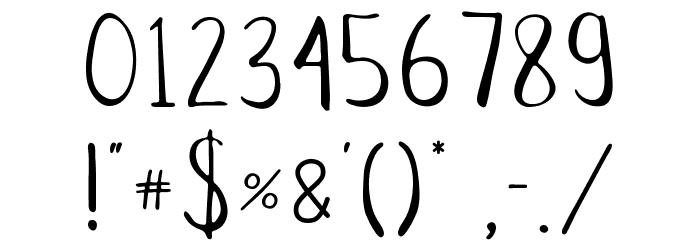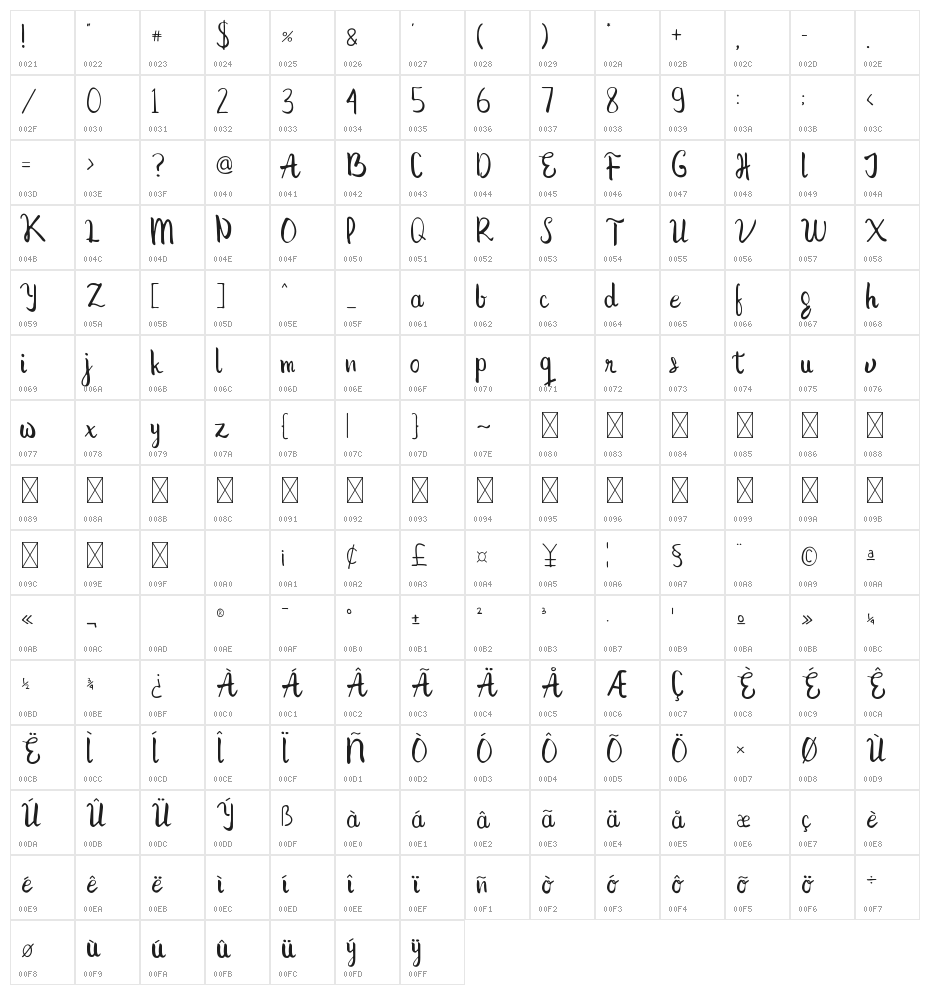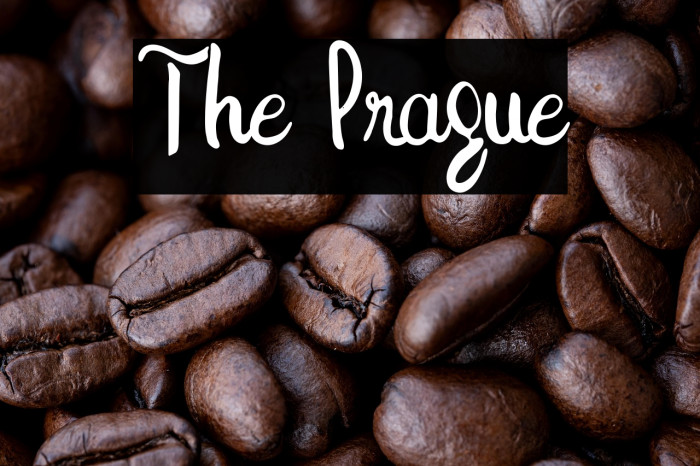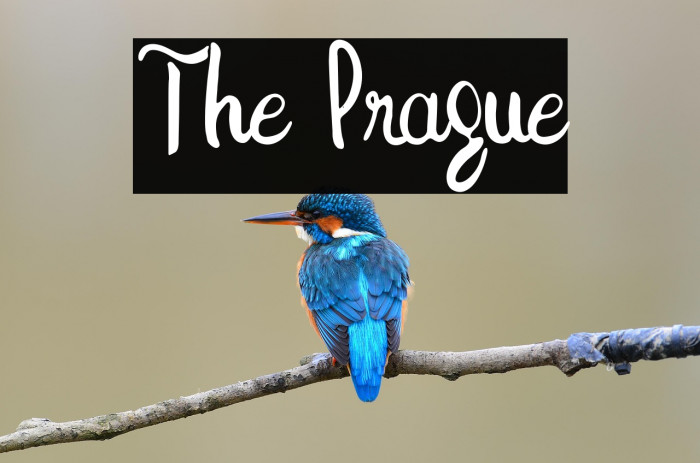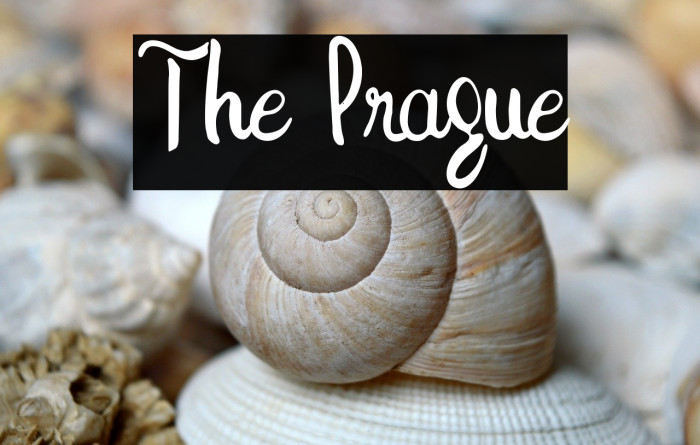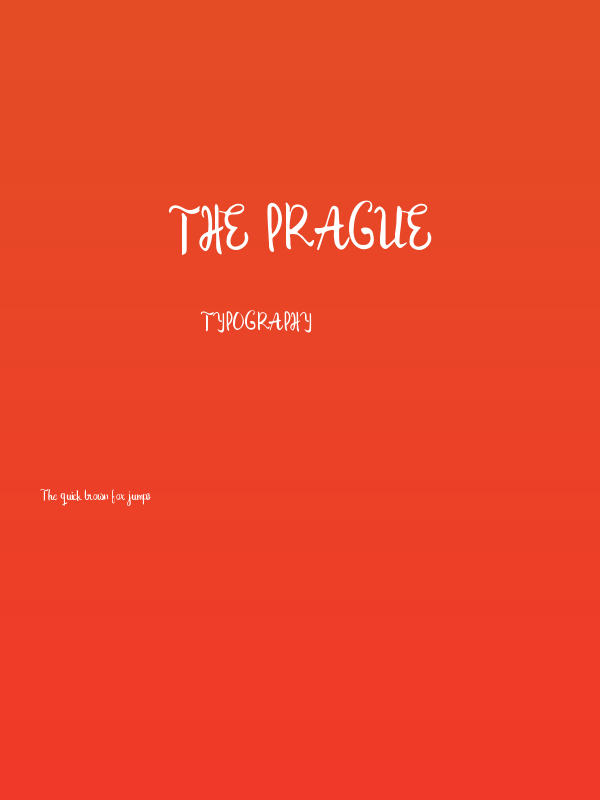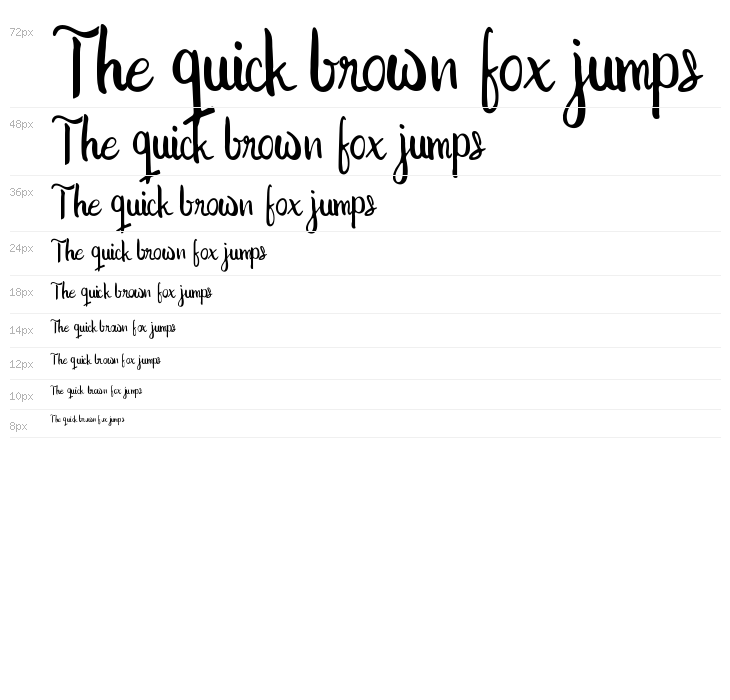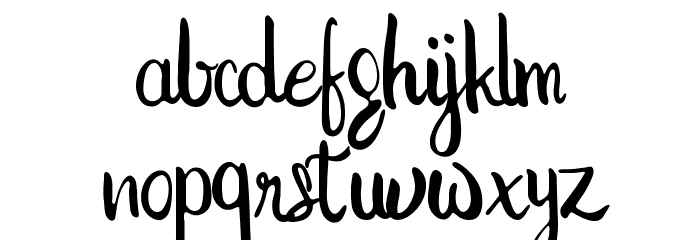
The Prague Font
The Prague Description
This font exhibits a playful and whimsical handwritten style, characterized by its fluid and dynamic strokes. The uppercase letters are bold and slightly irregular, giving them a lively appearance. The lowercase letters maintain a consistent flow, with some letters featuring unique loops and curls that add to the font's charm. The numerals are clear and easy to read, while the special characters complement the overall style with their quirky designs. This font's organic and informal nature makes it suitable for projects that require a personal touch.